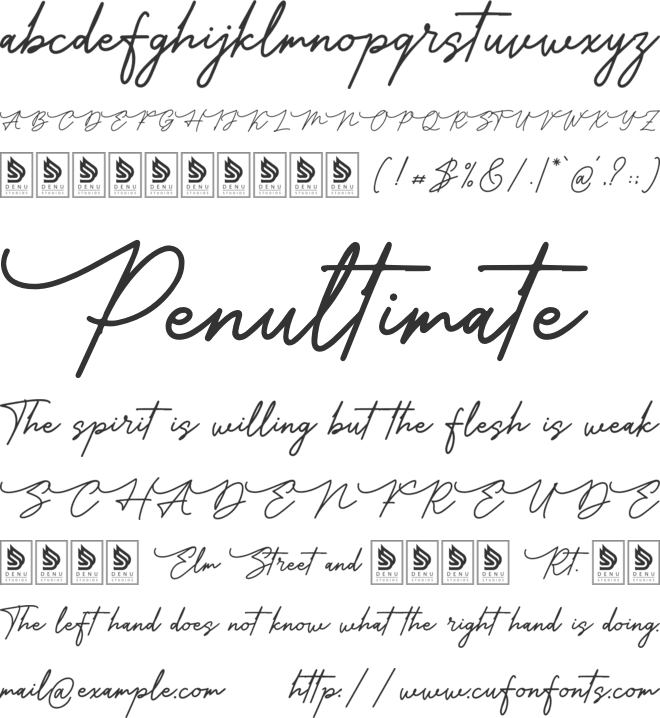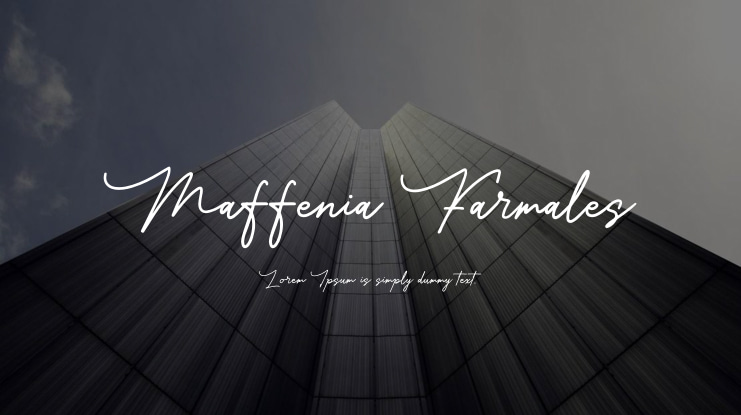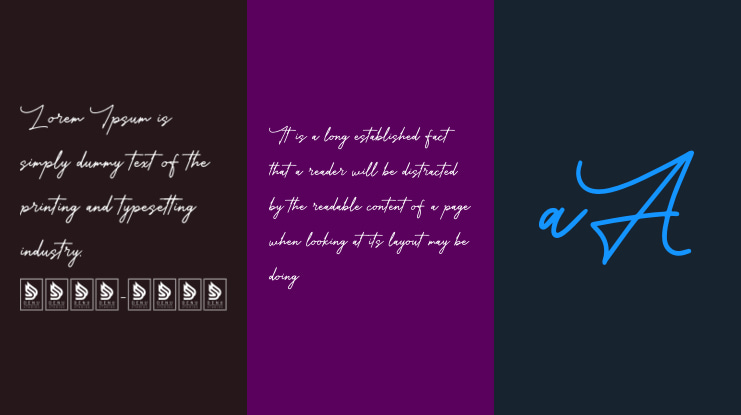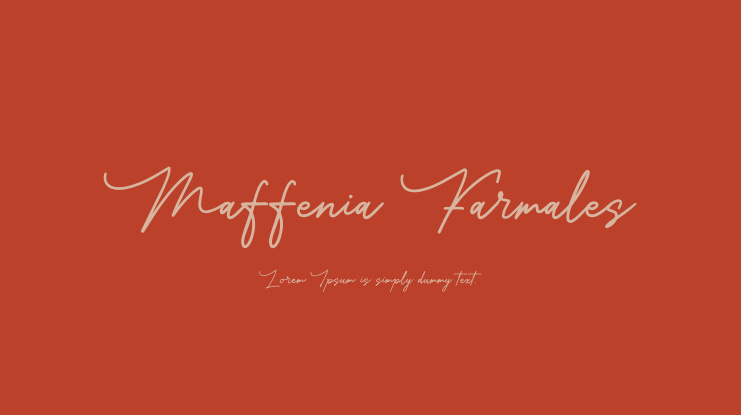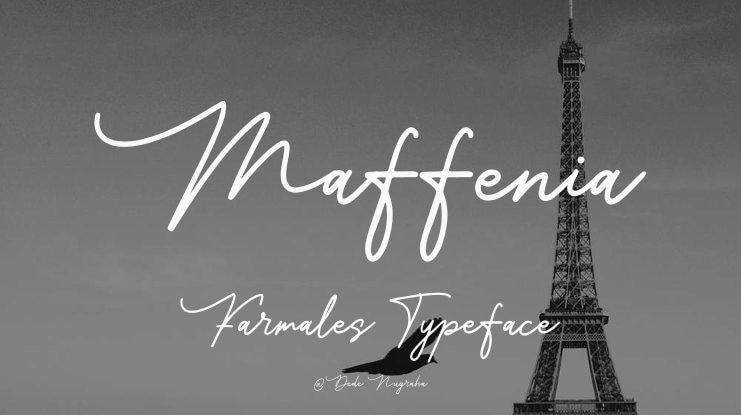
Maffenia Farmales | Monoline Stylish Script is suitable for any projects such as: logos, branding projects, homeware designs, product packaging, mugs, quotes, posters, shopping bags, t-shirts, book covers, name card, invitation cards, greeting cards, label, photography, watermark, special events, and all your other lovely projects that need a beautiful script taste.